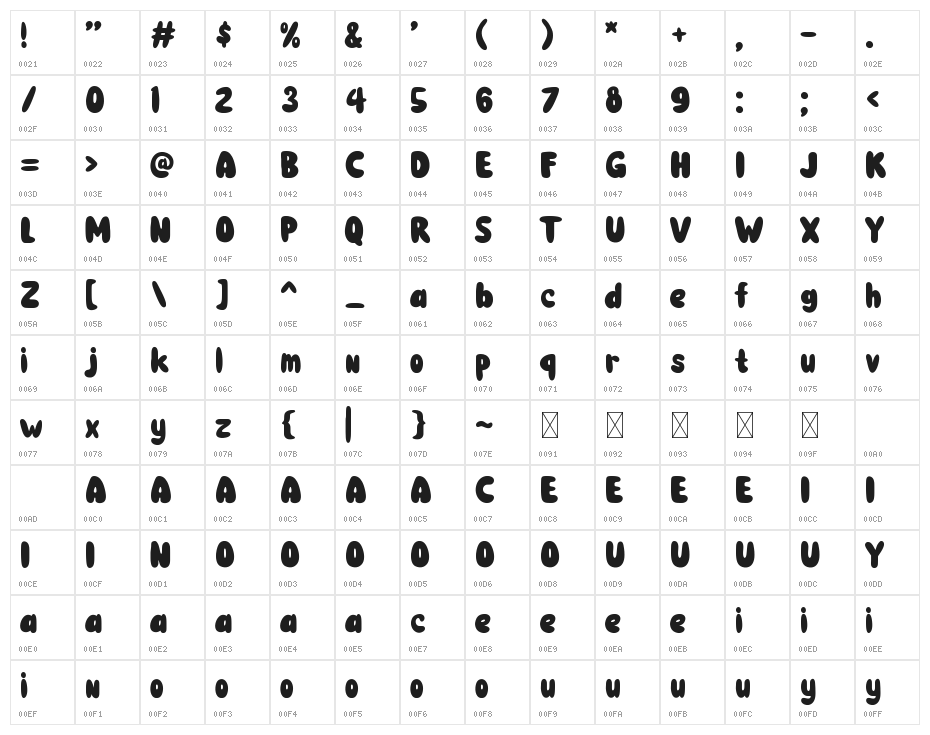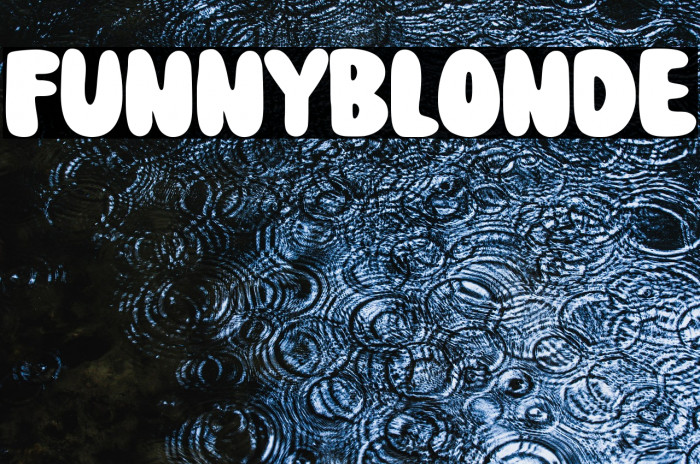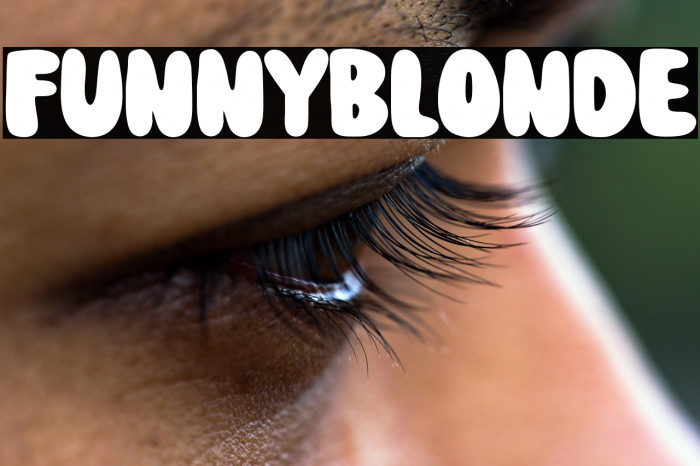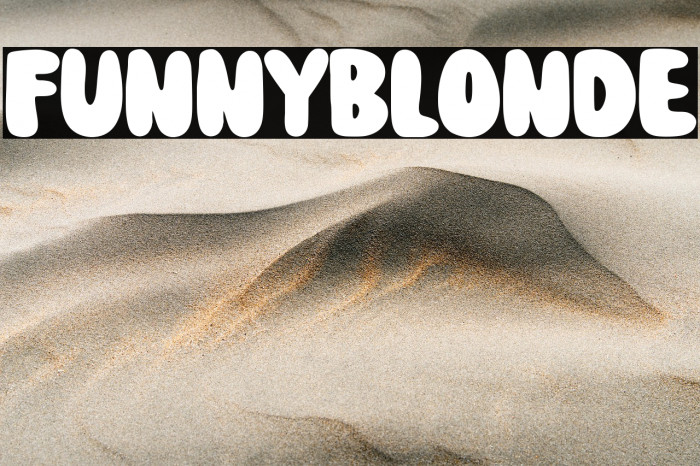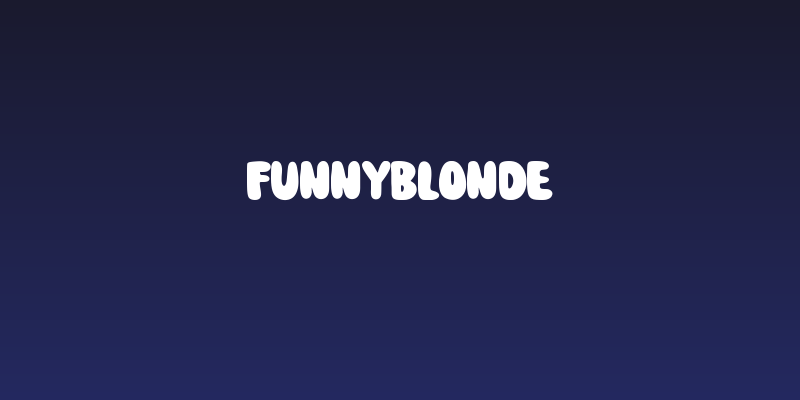
FUNNYBLONDE Font
FUNNYBLONDE Description
This playful and bold font features thick, rounded letters that exude a sense of fun and whimsy. The characters are uniformly bold with a consistent stroke width, giving them a cohesive and solid appearance. The rounded edges and bubbly form make it ideal for projects that require a friendly and approachable feel. The font maintains a consistent height across both uppercase and lowercase letters, ensuring readability while adding a touch of charm. The numbers and special characters follow the same design principles, making them easily recognizable and harmonious with the alphabetic characters.
Overall StylePlayful
Proposed ProjectsIdeal for children's books, playful branding, party invitations, and any project needing a lighthearted touch.